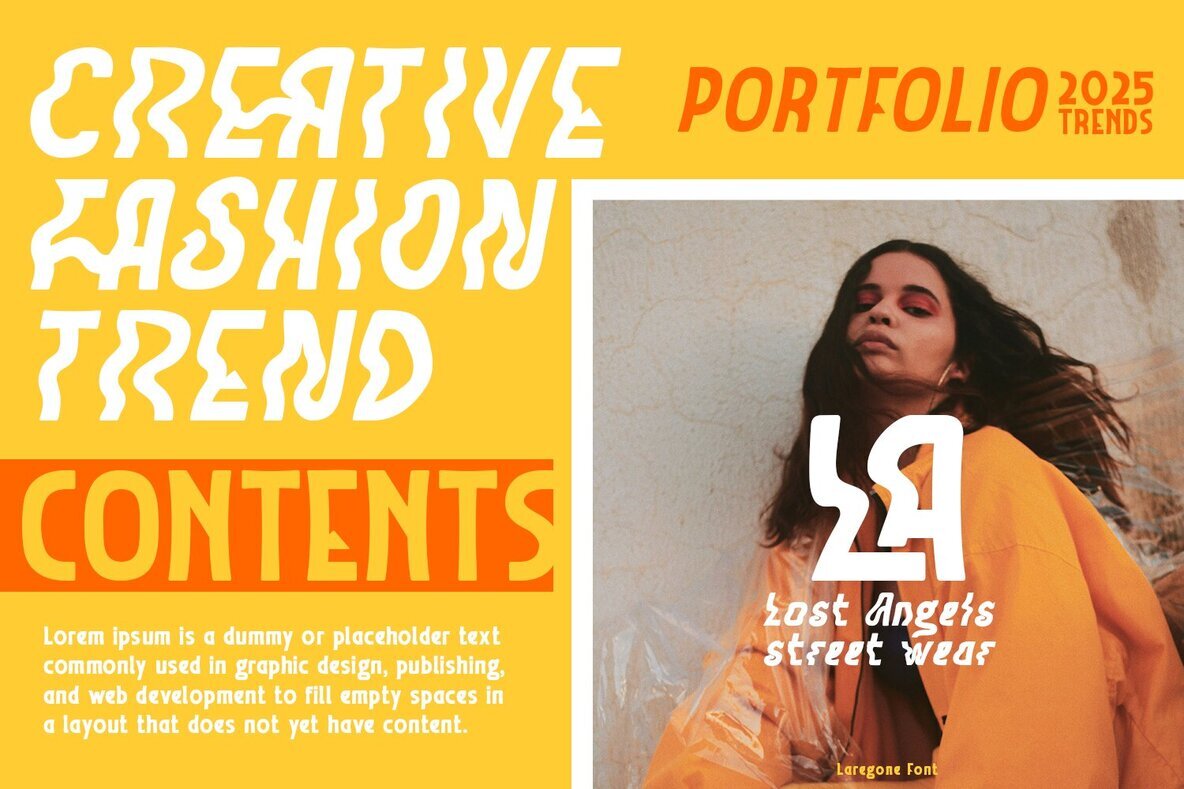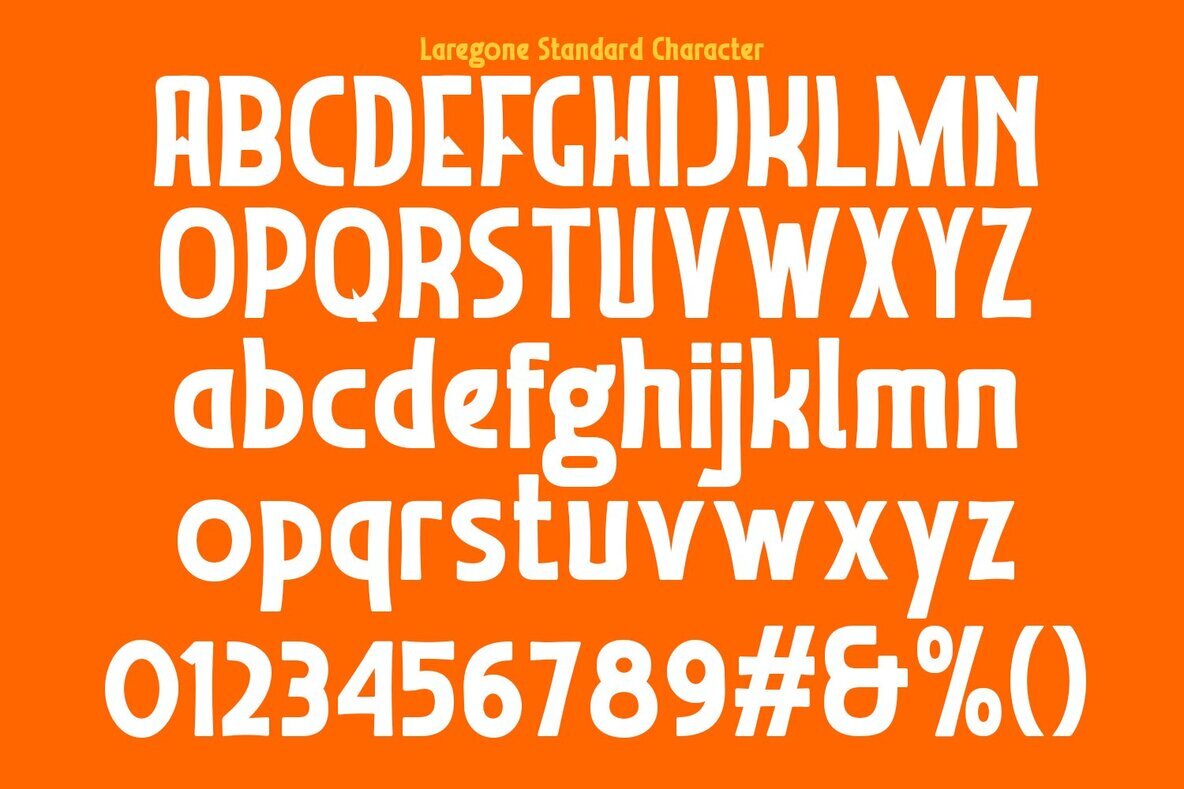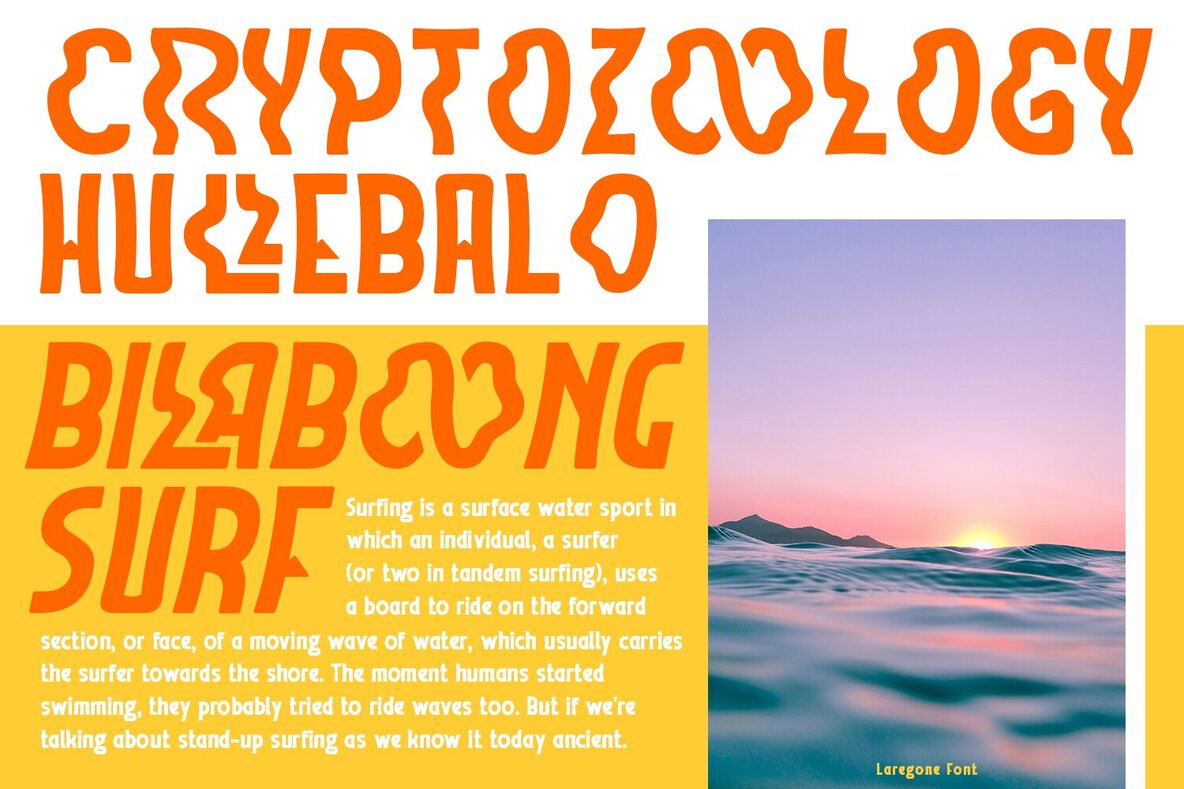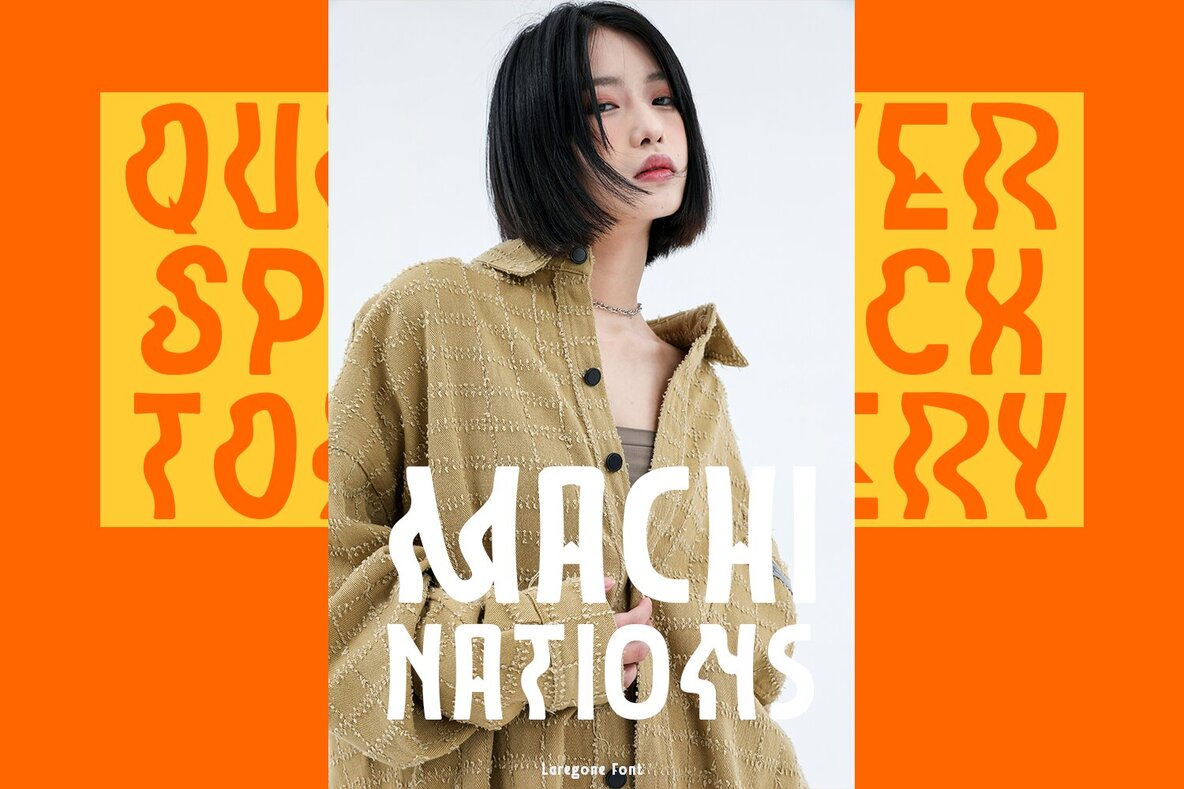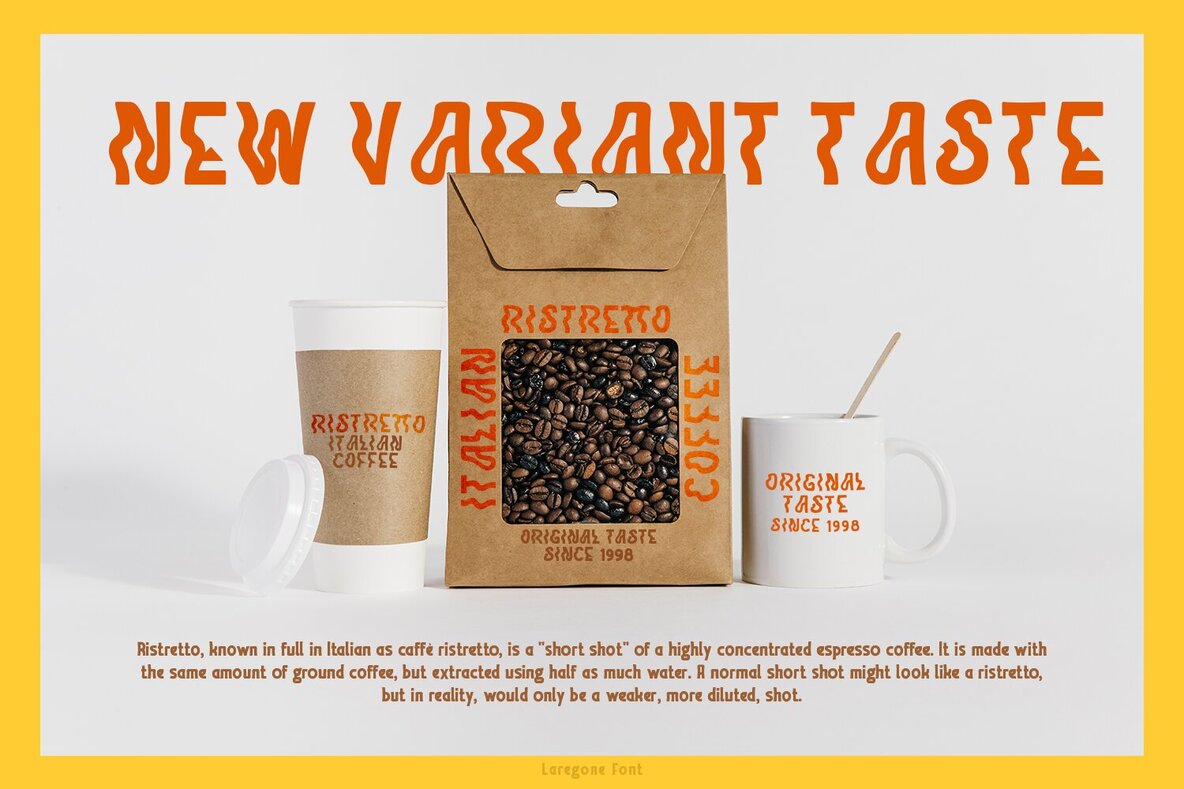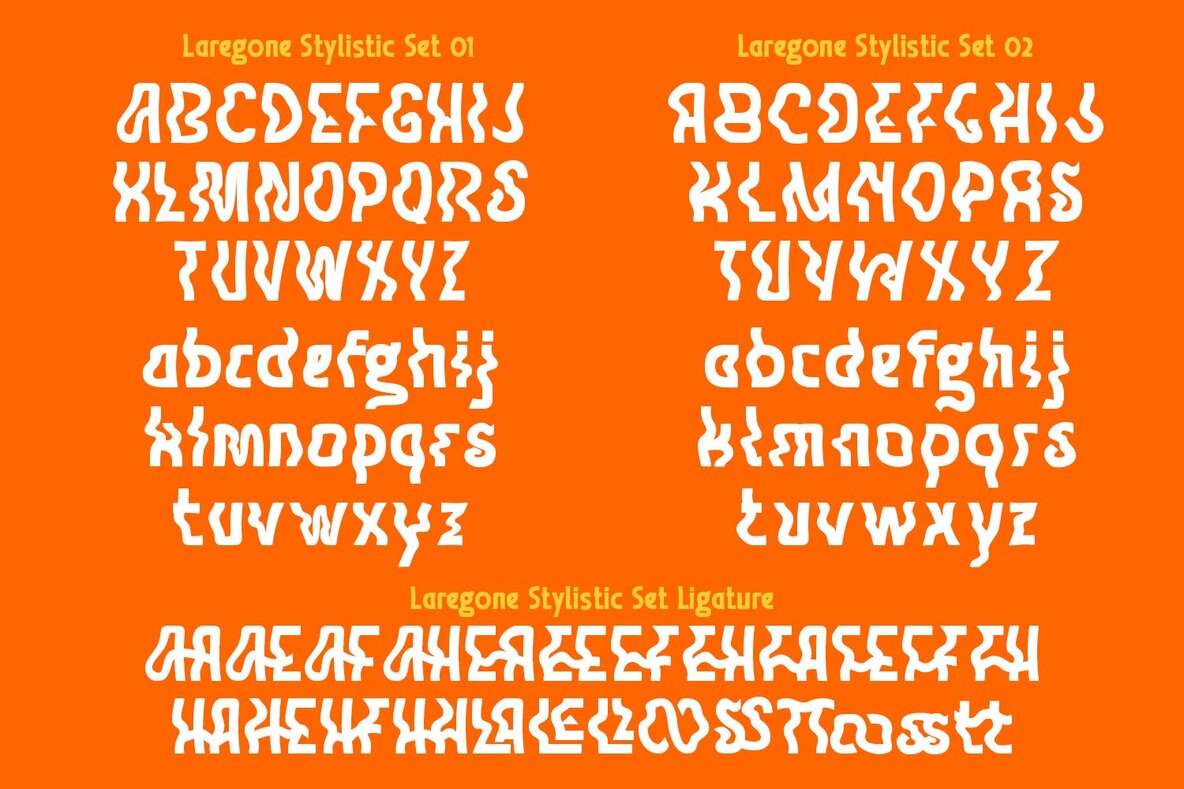
Laregone Font
A new modern Art Deco display font featuring unique, luxury, wave, vintage, and classy aesthetics. It provides a distinct look to enhance your design projects, making them both unique and classic.Art Deco Display Font: Unique and Classy Design